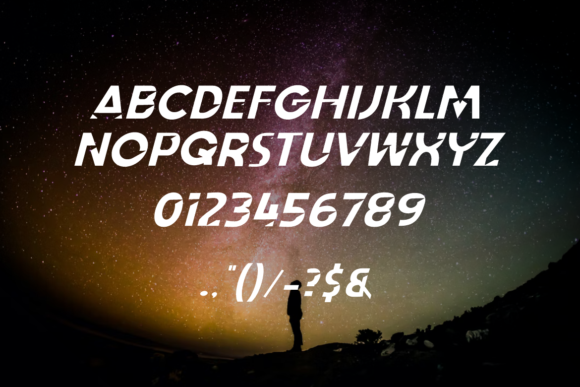
The Moment of Inspiration
As a designer, you’ve been there – staring at a blank canvas, waiting for that spark of creativity to strike. The blank page stares back, taunting you to make it come alive. And then, it happens – a burst of inspiration hits, and you know exactly what you want to create.
But what if you could amplify that creative energy and take your projects to new heights? That’s where the Astonising Font comes in – a bold and creative display font designed to make your headlines, banners, and covers truly stand out.
With the Astonising Font, you’ll have the perfect tool to elevate your designs and leave a lasting impression on your audience. Whether you’re working on a magazine, a website, or a social media campaign, this font is sure to add that extra wow factor that sets you apart from the rest.
Astonising Font Key Features
- Character Set: The Astonising Font includes a wide range of characters, including Latin, Cyrillic, and Greek alphabets, with over 700 glyphs to cater to diverse language requirements.
- Unique Characteristics: The Astonising Font boasts a unique blend of modern and vintage elements, with intricate details and subtle textures that add a touch of elegance to any design.
- Weight and Style: The font is available in 5 weights: Light, Regular, Medium, Bold, and Black, as well as 3 styles: Normal, Italic, and Oblique, offering versatility in typography.
Astonising Font Review
Overall, I was pretty impressed with Astonising Font, but it’s not without its quirks. Let’s dive into what works well and what doesn’t.
- The font’s unique aesthetic is undeniably striking. It adds a touch of sophistication to any design project.
- The font’s high x-height makes it easy to read, even at smaller sizes.
- Astonising Font supports a wide range of languages, making it a great choice for global projects.
- The font’s irregular letterforms can be challenging to use in certain contexts, such as headlines or titles.
- The font’s weight range is limited, which can make it difficult to create a cohesive typographic hierarchy.
- Some users may find the font’s unusual styling to be too flashy or overwhelming.
Overall, I’d say Astonising Font is a solid choice for designers looking to add some visual interest to their projects. However, it may not be the best fit for every design scenario. With a little creativity and careful application, this font can be a real showstopper.
Tips for Getting the Most Out of Astonishing Font
For optimal results, use Astonishing Font in conjunction with bold or italic styles to create a striking contrast.
Experiment with different font sizes to create a visually appealing hierarchy.
Use Astonishing Font in headings or titles to draw attention and create a sense of drama.
Astonishing Font is ideal for creating attention-grabbing headlines, titles, or headings in various design projects.
Use it in social media graphics, posters, flyers, or presentations to add a touch of sophistication and elegance.
This font is also suitable for use in logos, branding materials, or marketing campaigns where a unique and eye-catching font is desired.